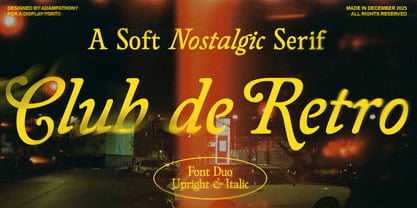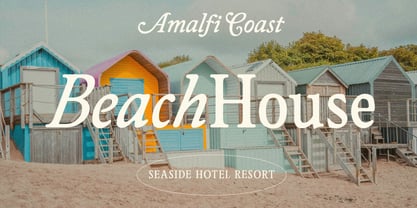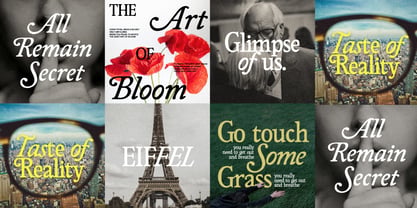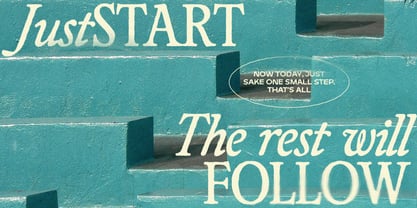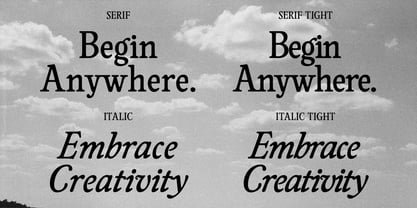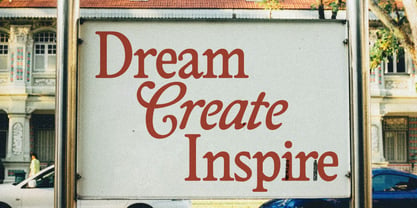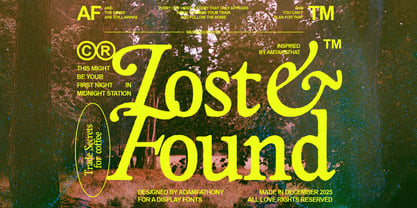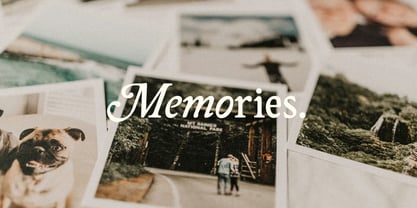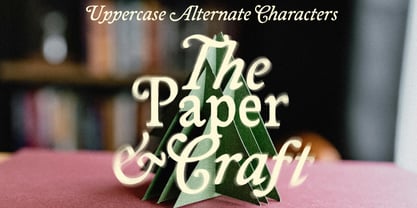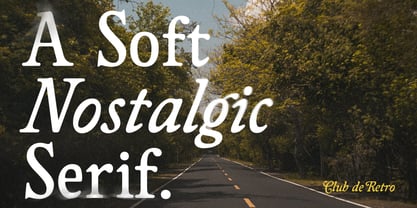
Club de Retro
by Adam Fathony
The Club de Retro Font Family was designed by Adam Fathoni Haris and published by Adam Fathony. Club de Retro contains 4 styles and family package options. More about this family
Club de Retro is font collection is a soft nostalgic serif family that combines vintage charm with modern clarity, crafted for designers who want their typography to feel warm, memorable, and highly expressive. Inspired by classic book covers, retro signage, and editorial layouts, the letterforms feature gentle contrast, smooth curves, and flowing italics that give text a romantic yet contemporary personality. The overall tone is cozy and cinematic, perfect for capturing themes of memories, creativity, travel, and handcrafted products. Includes regular, italic, and a tighter text-friendly version, allowing seamless use from bold headlines to supporting copy and taglines. Alternates, ligatures, and expressive ampersands deliver extra character for logos, titles, and wordmarks, helping each composition look custom-made rather than generic. Perfect for quote posters, book and magazine covers, social media graphics, branding for cafés or bakeries, and lifestyle or wedding projects that need an emotional, nostalgic touch. Works beautifully on packaging, signage, and website hero typography where you want words like “Dream,” “Memories,” or “Creative Living” to stand out and tell a story.
Designers: Adam Fathoni Haris
Foundry: Adam Fathony